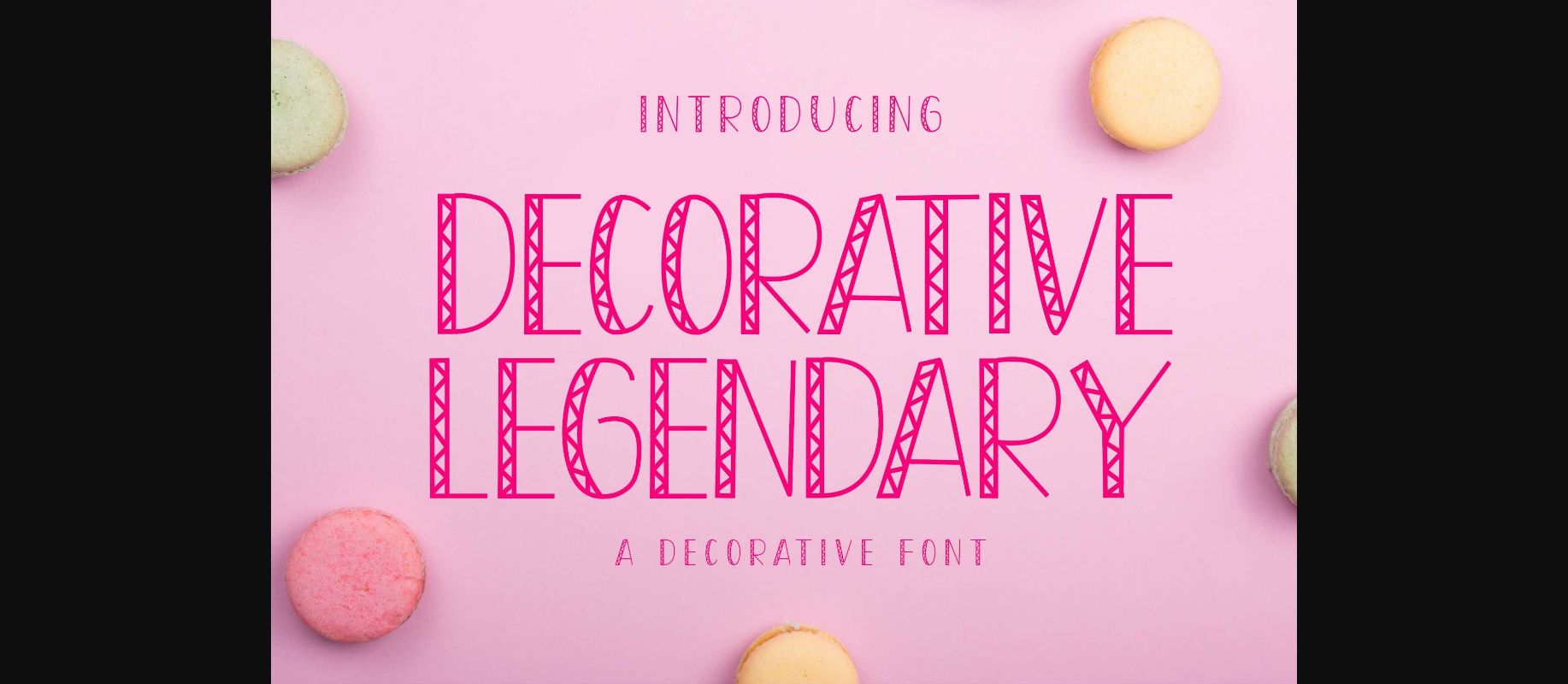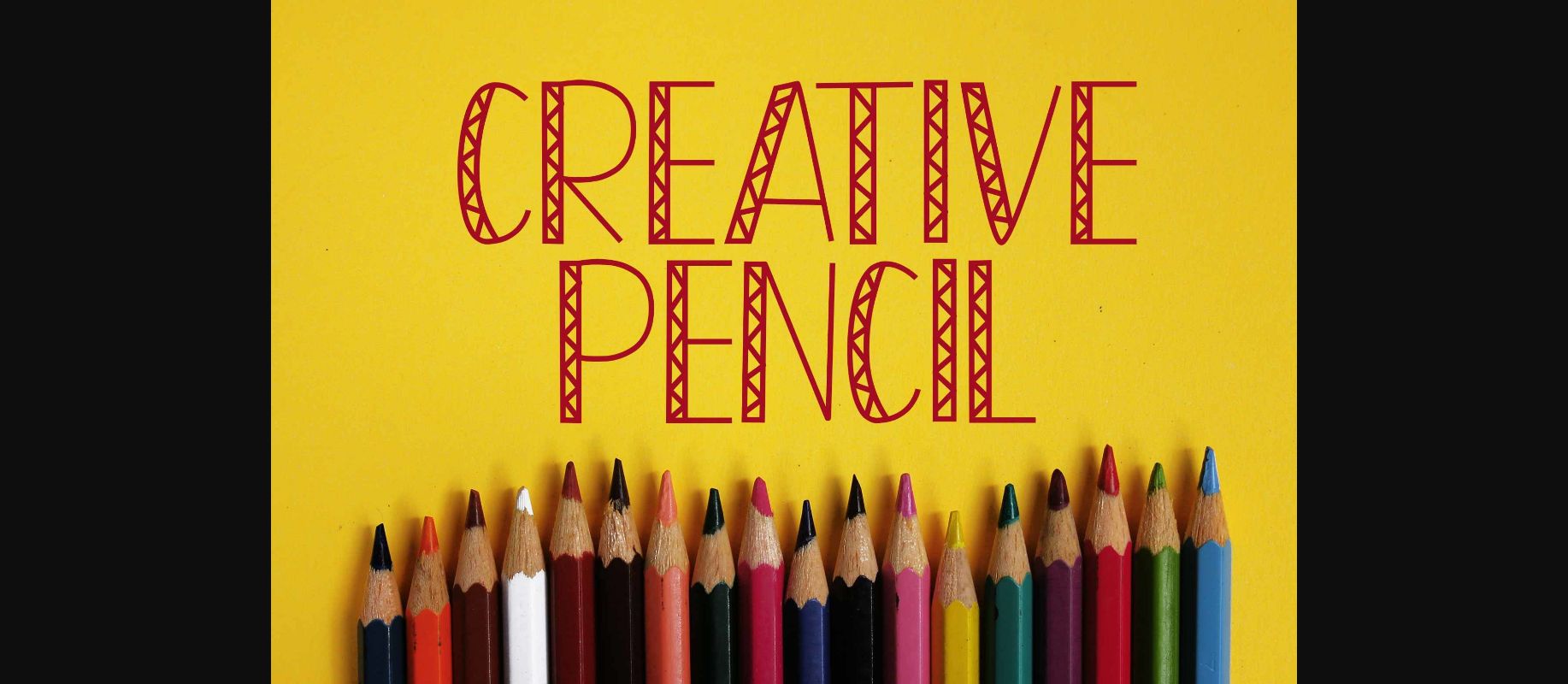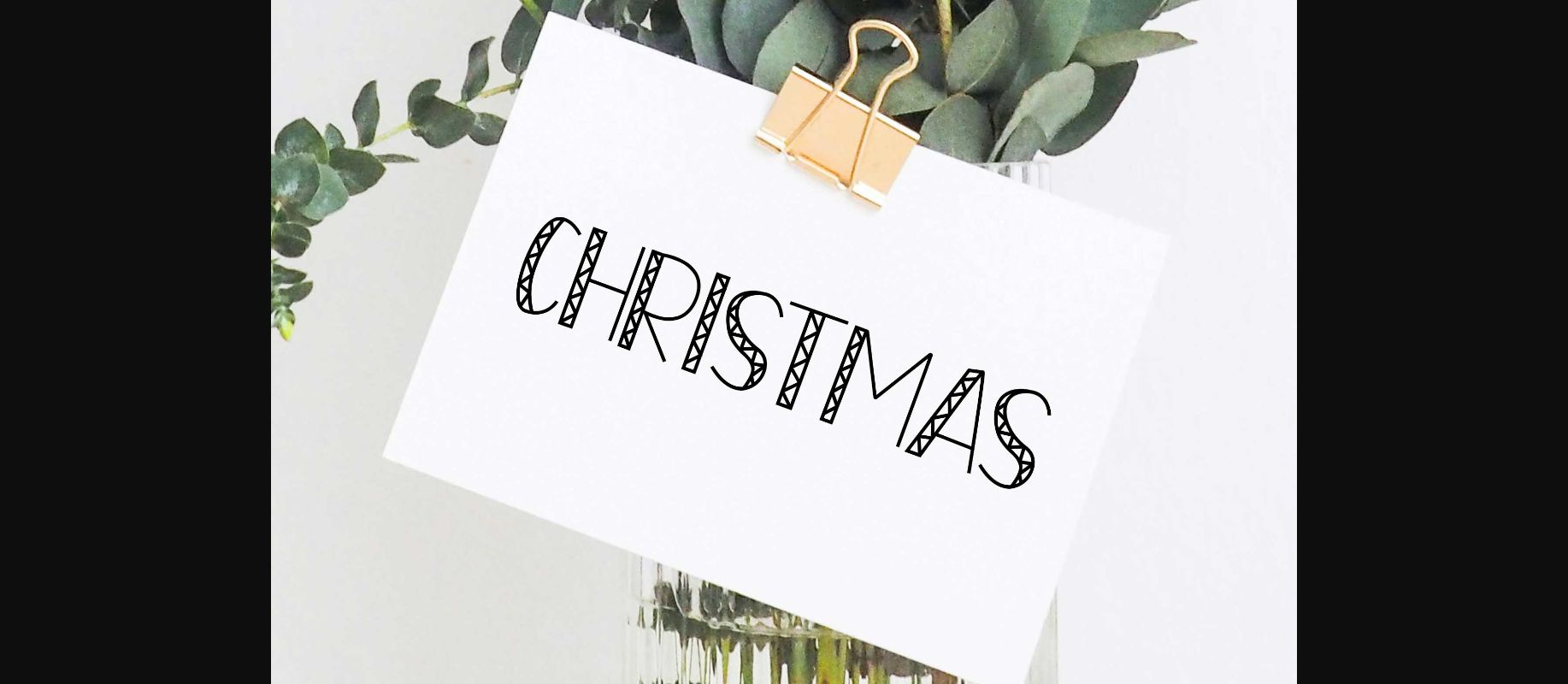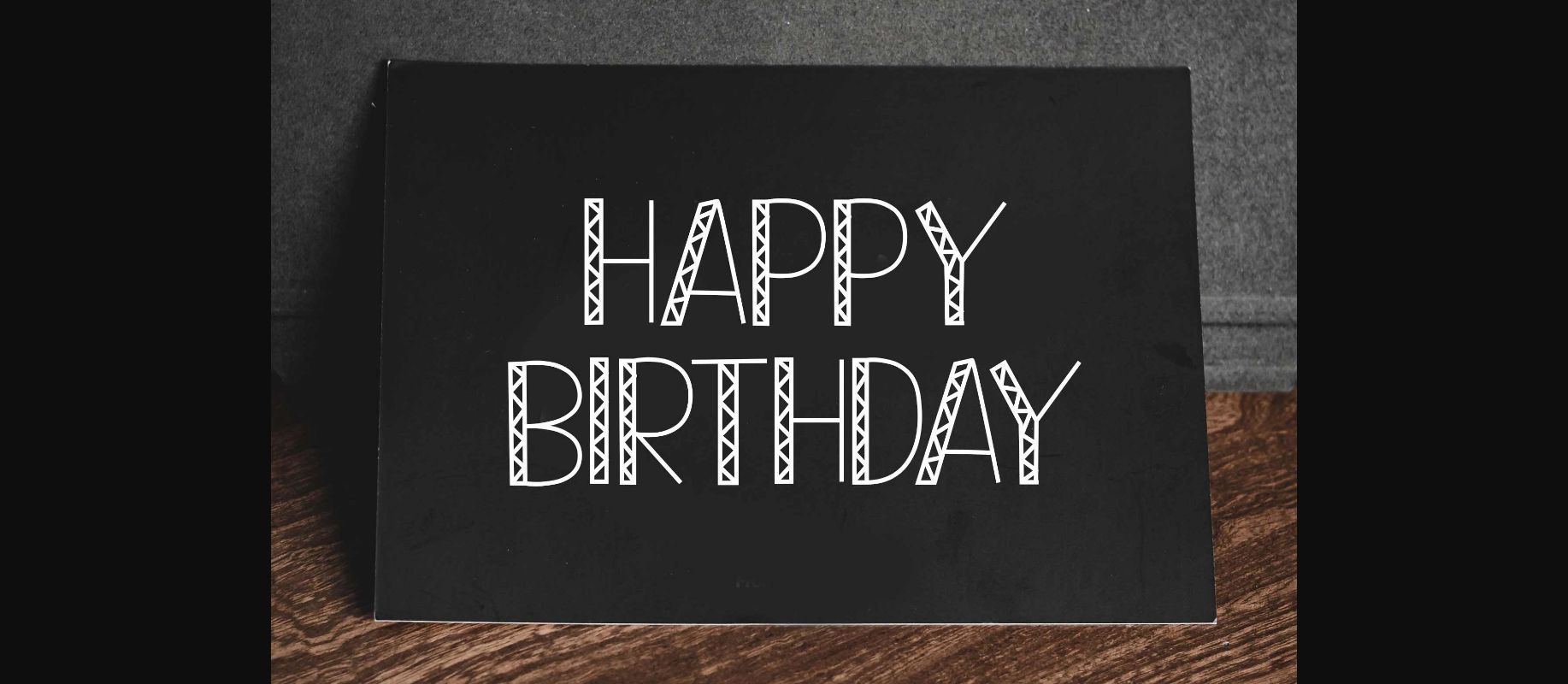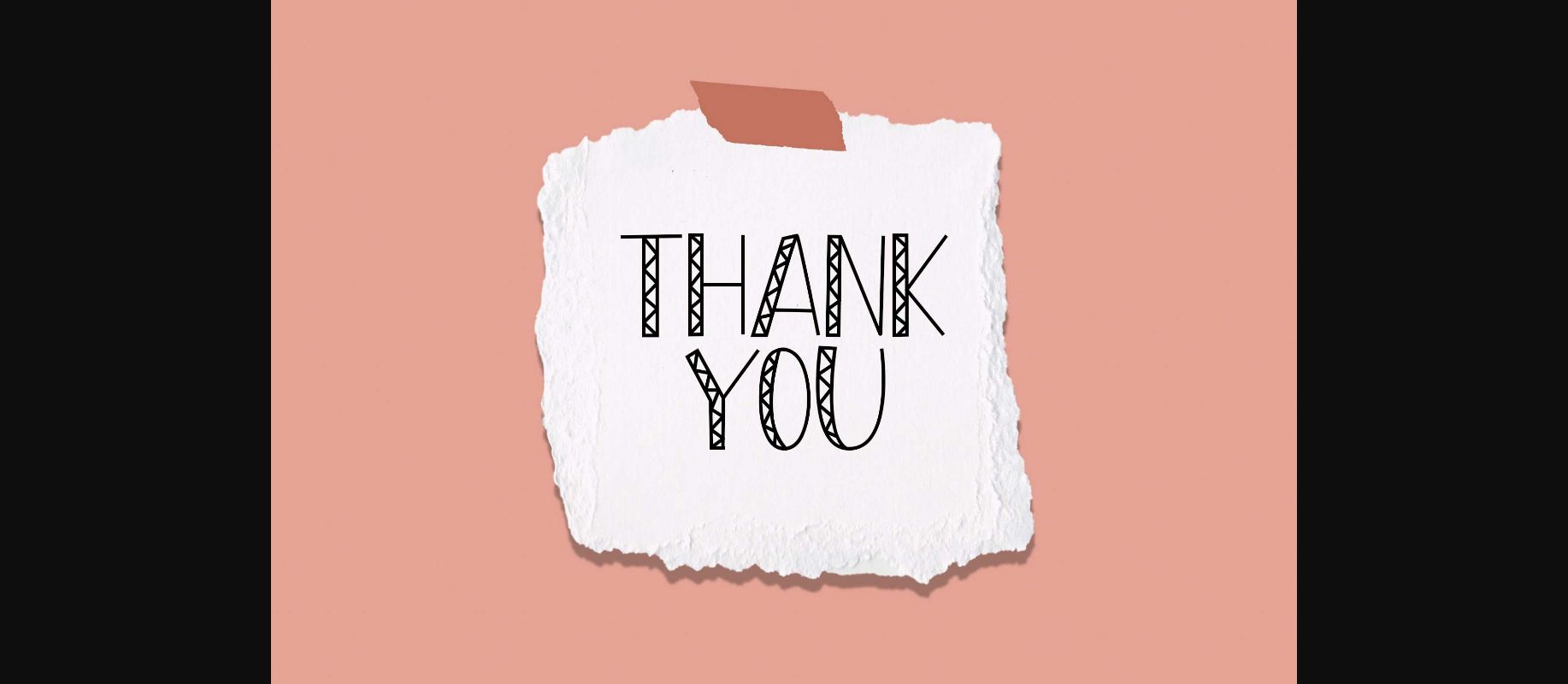
Decorative Legendary is a cool and adaptable decorative font. This font is ideal for writing web designs, business cards, or pretty much anything else that requires a unique touch.